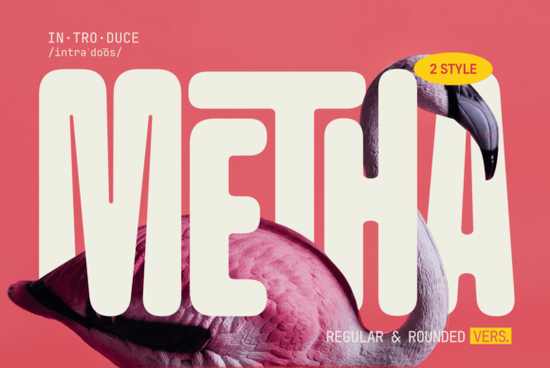
If you're looking for a modern, rounded sans-serif font that feels friendly without sacrificing clarity, Metha Font is a solid choice. It’s designed with wide letterforms and smooth, consistent curves making it easy to read at small sizes and eye-catching in headlines. Whether you’re designing social media graphics, product labels, or printable wall art, Metha strikes a balance between contemporary style and approachable warmth. It comes in two distinct styles: Regular and Rounded so you can choose based on whether you want subtle softness or extra playfulness.
When does Metha Font work best?
Metha shines where personality and legibility both matter. Think of branding for a small-batch coffee roaster, a kids’ activity book, or minimalist packaging for handmade soap. Its bold yet rounded strokes hold up well on fabric prints, enamel pins, and vinyl decals common formats for crafters and print-on-demand sellers. Because the characters are wide and open, it also performs reliably in body text on digital flyers or email newsletters, especially when readability matters more than decorative flair.
Unlike ultra-thin or highly stylized fonts, Metha doesn’t rely on trendiness to stand out. It’s quietly confident clean enough for a wellness studio’s website header, warm enough for a greeting card line, and versatile enough for bilingual layouts (it supports Latin-based languages and includes standard punctuation, numerals, and basic diacritics).
How does it compare to other rounded sans-serifs?
Not all rounded fonts feel the same. Some lean too cute; others lose definition at smaller sizes. Metha avoids both pitfalls by keeping stroke contrast low and corners gently curved not overly bubbly, not too mechanical. If you’ve used Makio Font, you’ll notice Metha has a wider x-height and slightly more generous spacing, which helps it breathe better in tight layouts like Instagram story text or apparel tags.
It’s also more neutral than many playful display fonts meaning it pairs easily with serif companions (like Lora or Playfair) for contrast, or with monospaced options for a tech-adjacent vibe. Designers who prefer restrained color palettes or minimal layouts often find Metha fits naturally without demanding attention.
What projects do real users build with it?
- Small business branding: Logo lockups, menu boards, and shop signage especially for cafes, boutiques, or studios focused on wellness, education, or creativity.
- Print-on-demand products: T-shirt quotes, tote bag slogans, and sticker sheets benefit from Metha’s bold presence and clean edges, which translate well to screen printing and heat transfer.
- Digital craft kits: Planners, habit trackers, and printable quote cards use Metha for headings because it stays legible even when scaled down or printed on textured paper.
- Social content: Instagram carousels, Pinterest pins, and Canva templates gain consistency when Metha anchors headlines its rhythm helps viewers scan quickly without visual fatigue.
Technical notes worth knowing
For crafters using cutting machines, the clean outlines and lack of thin hairlines mean fewer issues with weeding or registration especially helpful when working with vinyl or iron-on transfers. And because it’s a single-weight family (Regular + Rounded), file size stays light, making it easy to share with collaborators or embed in lightweight PDFs.
If you’re exploring similar options, Metha Font sits comfortably between ultra-minimalist sans-serifs and bolder display fonts offering more friendliness than Metha Font and more structure than Makio Font.
A quick checklist before downloading
- ✅ You need a rounded sans-serif that works at multiple sizes not just headlines.
- ✅ Your project uses English or common Western European languages.
- ✅ You value clean vector outlines for cutting machines or scalable digital use.
- ✅ You prefer a balanced tone modern but not cold, friendly but not childish.
- ❌ You need extensive language support (e.g., Vietnamese, Turkish, or extended Cyrillic).
If those match your needs, Metha Font is ready to drop into your next layout and chances are, you’ll reach for it again.